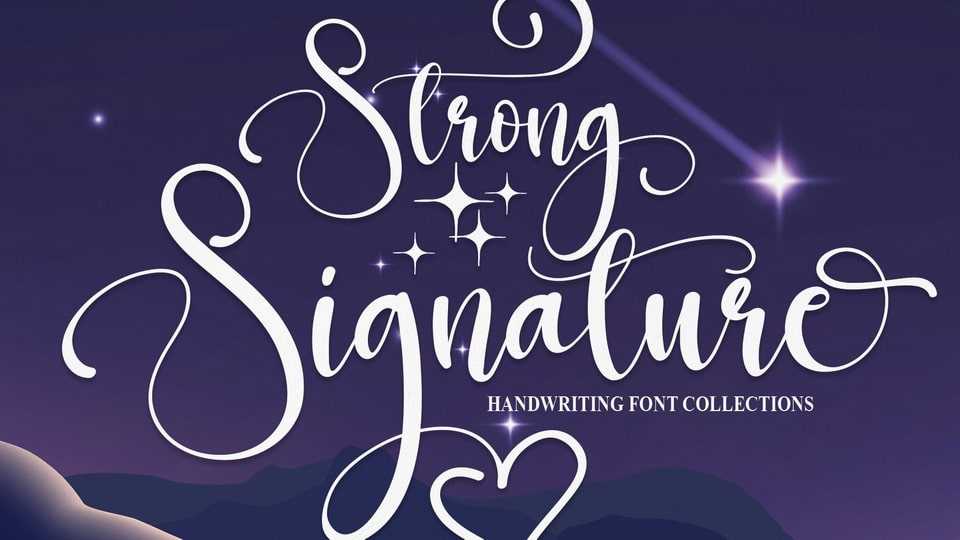
Download Strong Signature font, a delightful and flowing handwritten script typeface. Modern and elegant, this typeface is made of beautiful creative strokes.